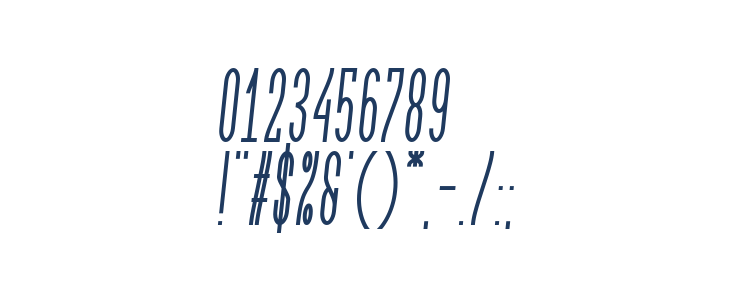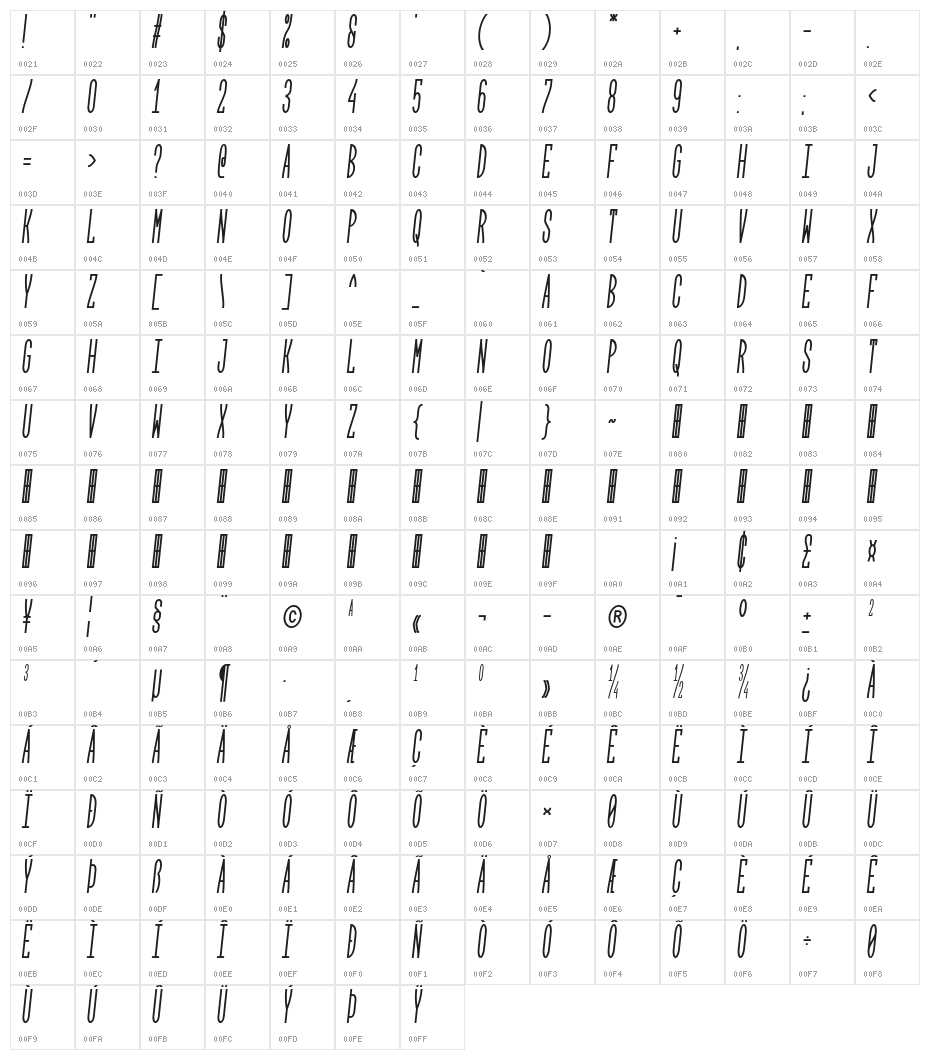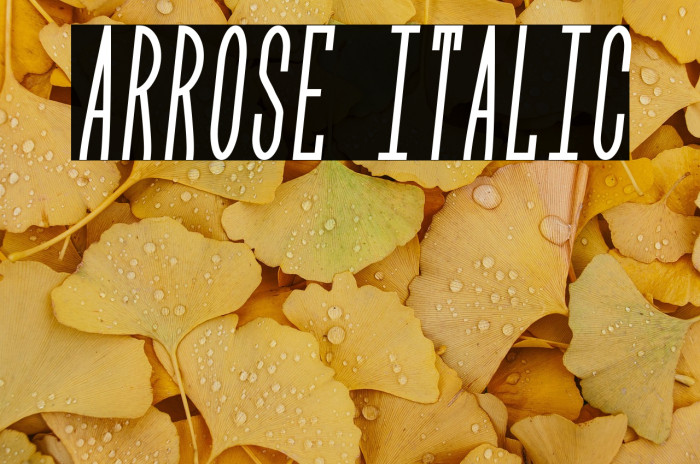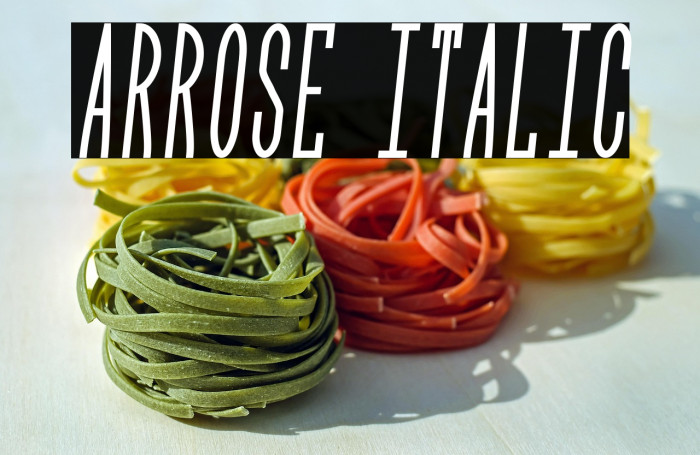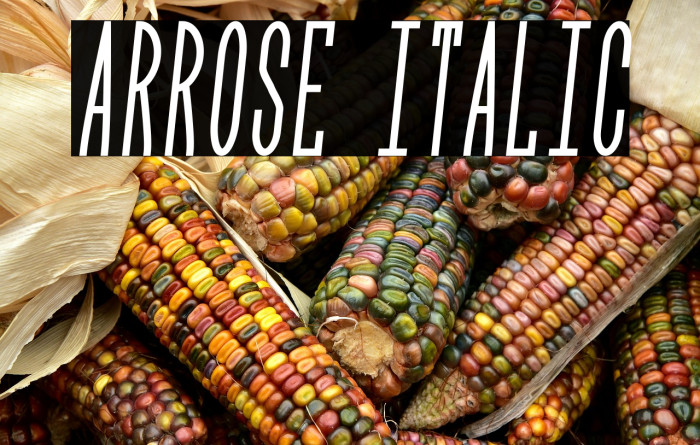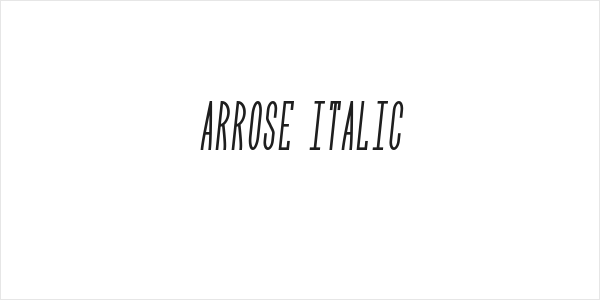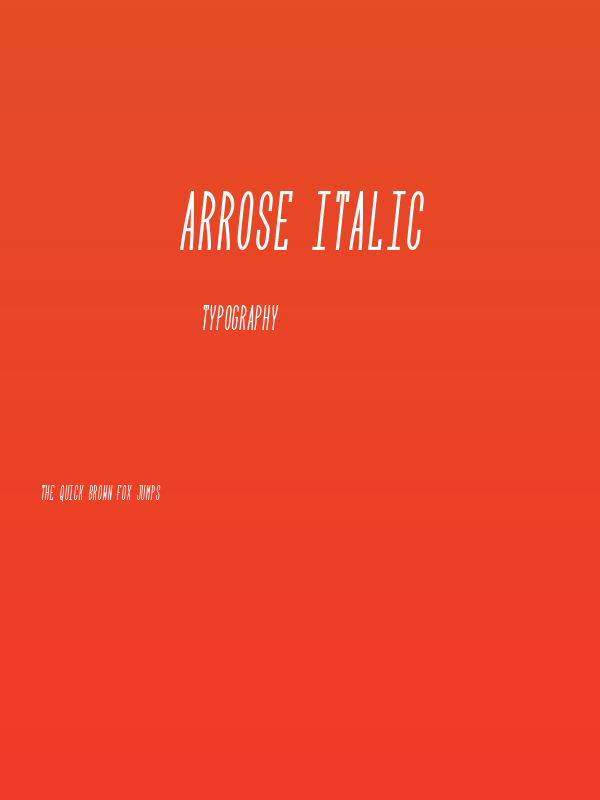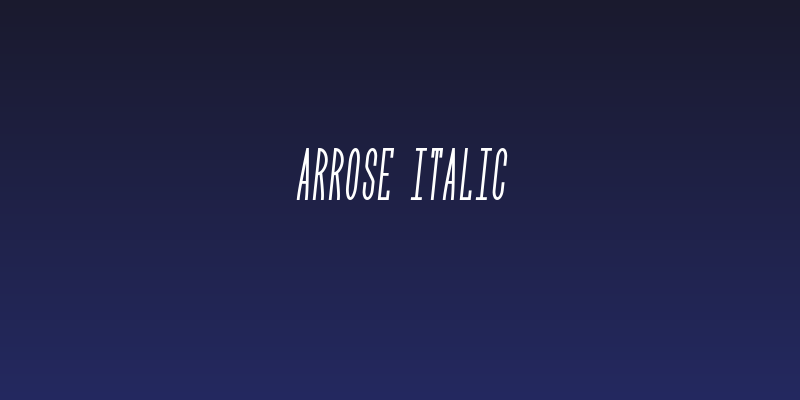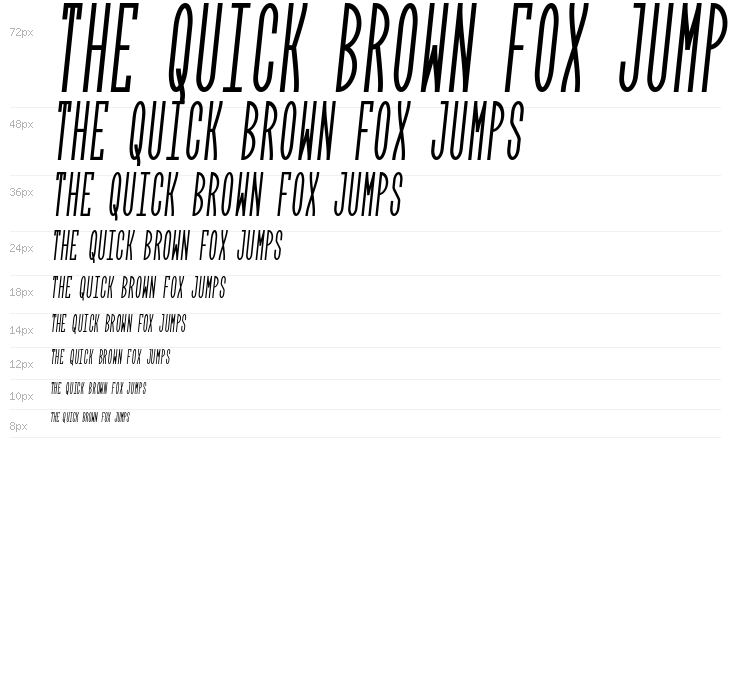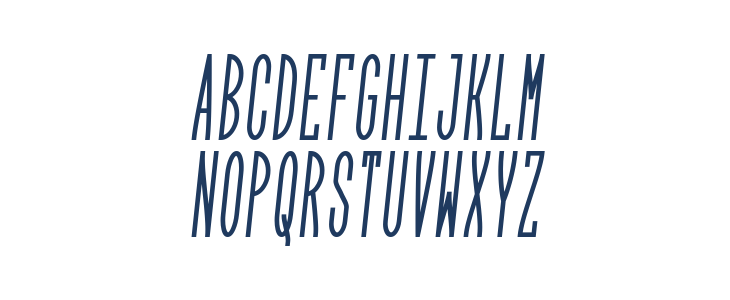
Arrose Italic Font
Arrose Italic Description
This font exhibits a strikingly modern and sleek design, characterized by its italicized and elongated letterforms. The characters are tall and narrow, creating a sense of elegance and sophistication. The font's thin strokes and high contrast between thick and thin lines add to its refined appearance. Its slanted orientation gives it a dynamic and forward-moving feel, making it suitable for contemporary and stylish applications. The spacing between characters is tight, enhancing its compact and streamlined look. Overall, this font is a perfect choice for projects that require a touch of modernity and elegance.
| Proposed Projects | Ideal for fashion magazines, luxury branding, modern art posters, and sleek website headers. |